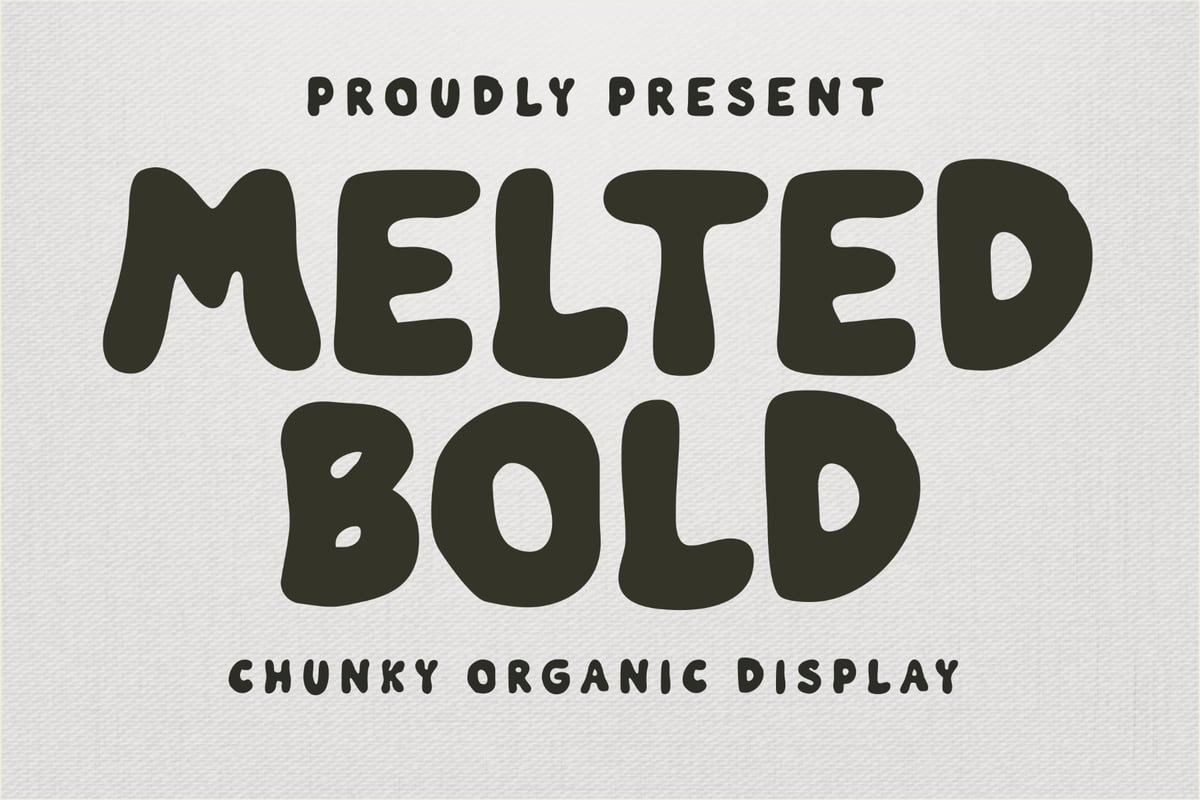
Free Melted Bold - Chunky Organic Display Font
Bold, chunky, and oozing with personality — Melted Bold is the playful display typeface your designs have been craving.
Melted Bold is a heavy organic display typeface built around smooth, liquid-like curves and a warm handcrafted character. Its thick, rounded letterforms command attention instantly while keeping every design feeling friendly, fun, and approachable.
Perfect for a wide range of creative applications, including:
- Food and beverage packaging — ice cream, coffee, bakery, and snack brands
- Summer event posters and banners
- Stickers, badges, and merchandise
- Playful logos and brand identities
- Children's books and educational materials
- Social media graphics and bold headlines
With smooth organic shapes, clean vector construction, and multilingual language support, Melted Bold delivers typographic versatility across both print and digital projects.